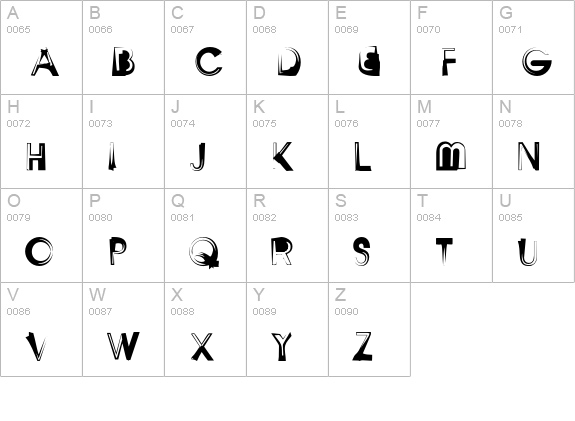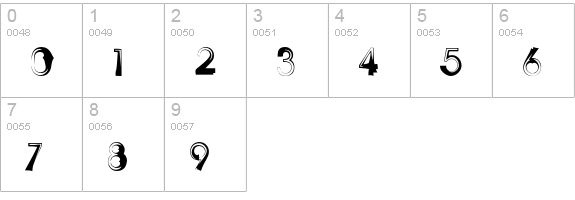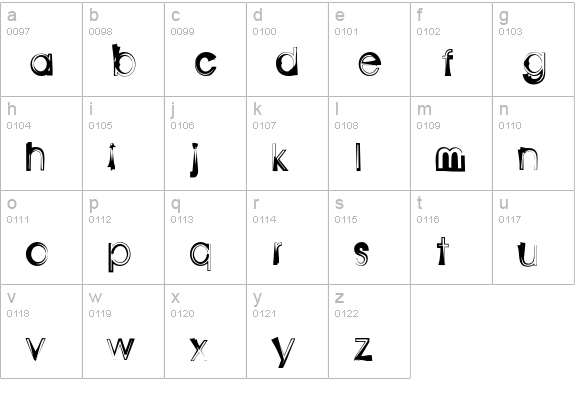
ThaneGash font is a stunning display typeface that effortlessly combines elegance with a dash of edginess. Its bold and distinct letterforms command attention and make a lasting impression. Designed with meticulous attention to detail, this font is perfect for headlines, logos, branding, and other creative projects that require a touch of sophistication. With its unique character and striking presence, ThaneGash font stands out from the crowd, making your designs truly memorable. Each letter is meticulously crafted to exude a sense of power and confidence, making it the ideal choice for projects that demand a strong visual impact. One of the standout features of ThaneGash font is that it is free to download. Available exclusively at FontsMarket.com, this font offers a high-quality design resource that won't break the bank. Whether you're a professional designer or a hobbyist, ThaneGash font allows you to elevate your creative projects without any cost barriers. The versatility of ThaneGash font is another reason why it has become a favorite among designers. It effortlessly adapts to various design styles, from modern and minimalist to vintage and retro. Its extensive character set includes uppercase and lowercase letters, numerals, punctuation marks, and special characters, ensuring that you have all the tools you need to bring your vision to life. With ThaneGash font, you can create stunning typography that leaves a lasting impression. Its bold and impactful design, combined with its availability as a free download, makes it an invaluable asset in any designer's toolkit. So why wait? Head over to FontsMarket.com and unleash the power of ThaneGash font in your next creative endeavor.